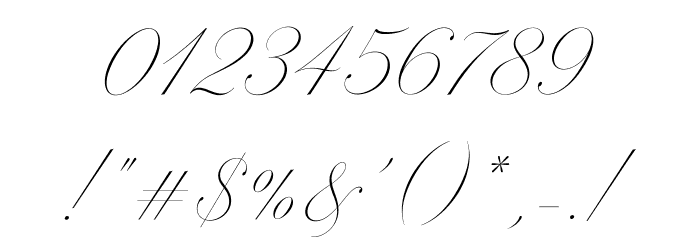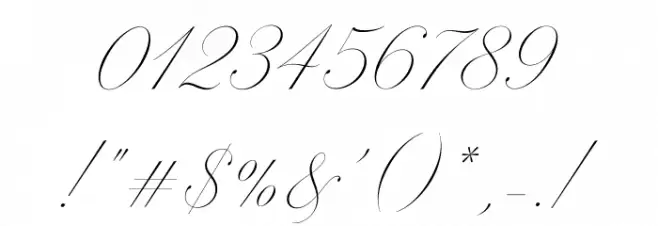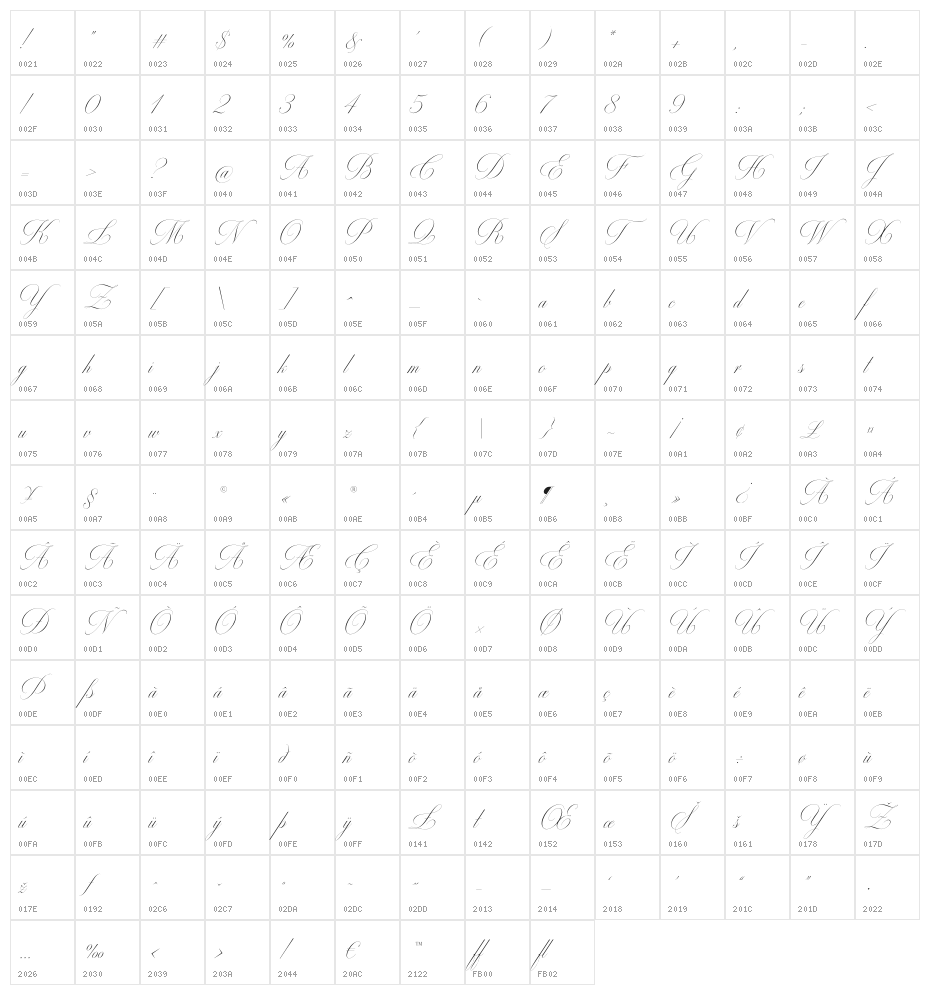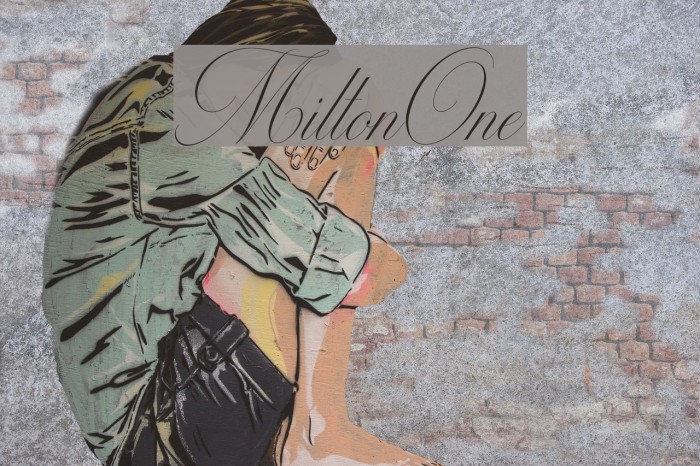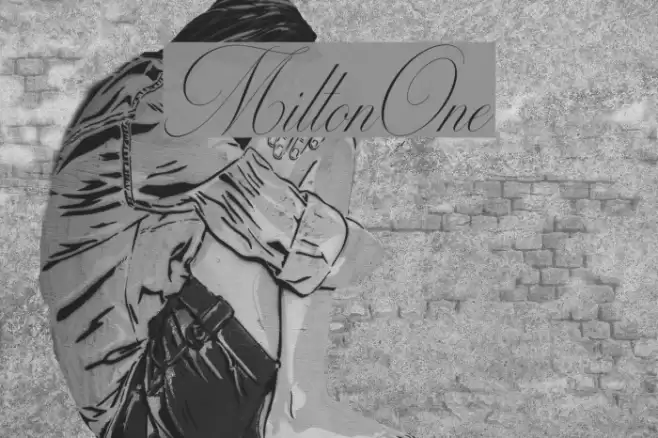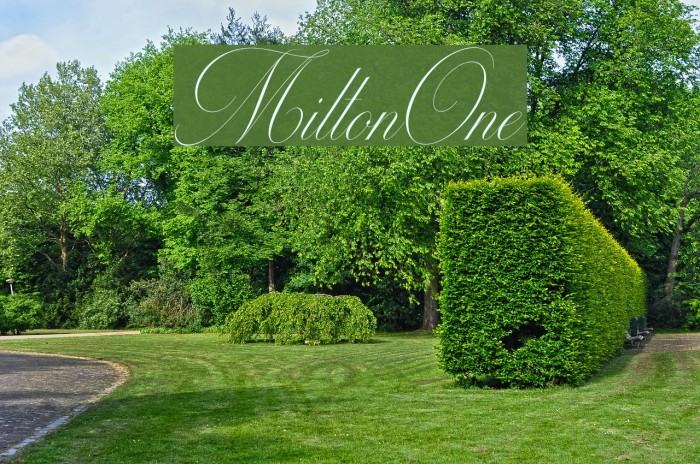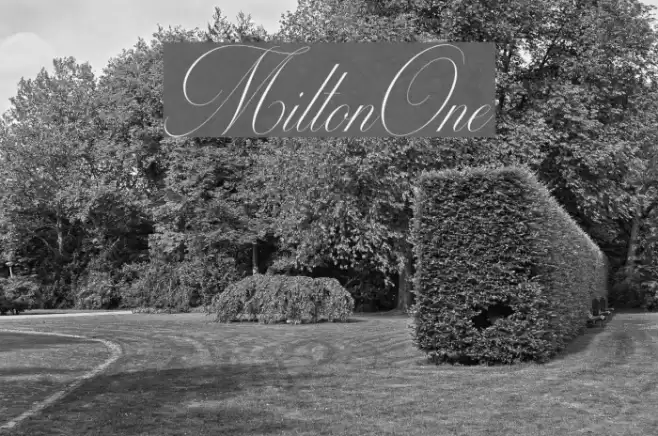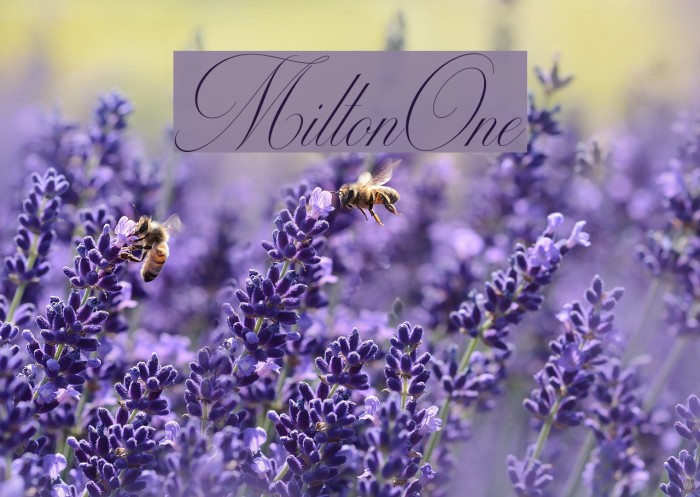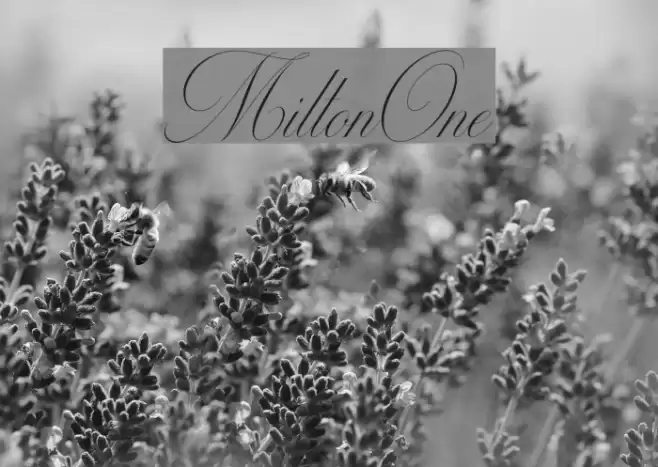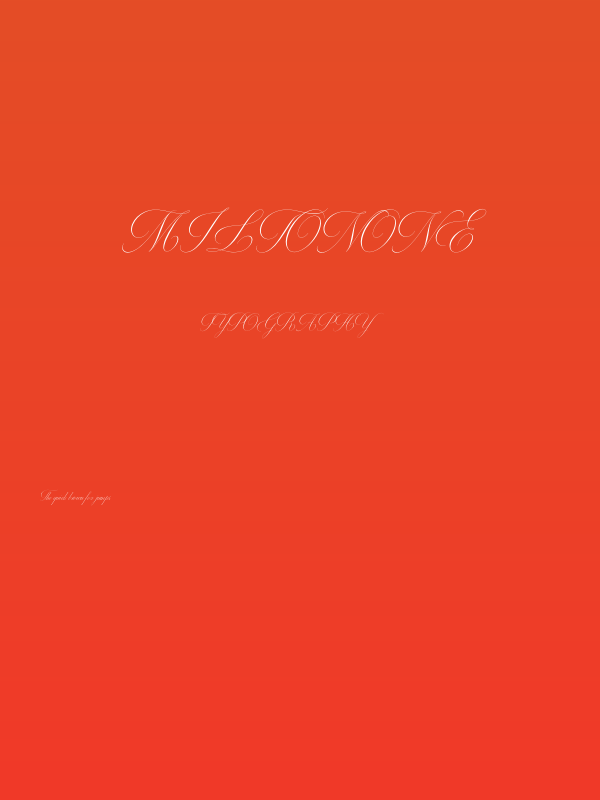
MiltonOne Font
MiltonOne Description
This elegant script font features graceful, flowing lines that mimic the fluidity of cursive handwriting. The uppercase letters are ornate, with intricate loops and swashes that add a touch of sophistication. The lowercase letters maintain a consistent style, with smooth connections between characters, enhancing readability while preserving the decorative nature. The numerals are styled to match the overall aesthetic, providing a cohesive look across all characters. Special characters are included, designed with the same attention to detail, making this font versatile for various uses.
| Use Case | Invitations, Branding, Packaging |
| Proposed Projects | Ideal for wedding invitations, elegant branding, luxury product packaging, and formal event programs. |